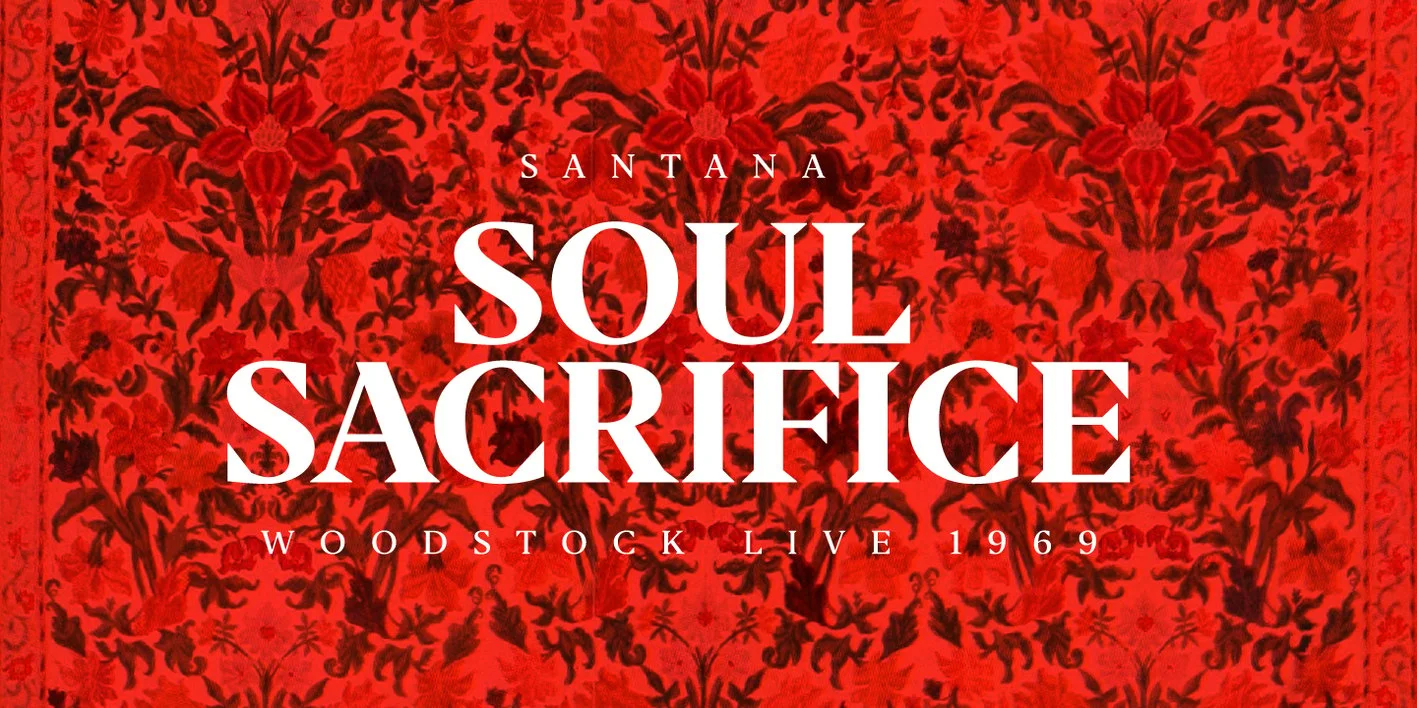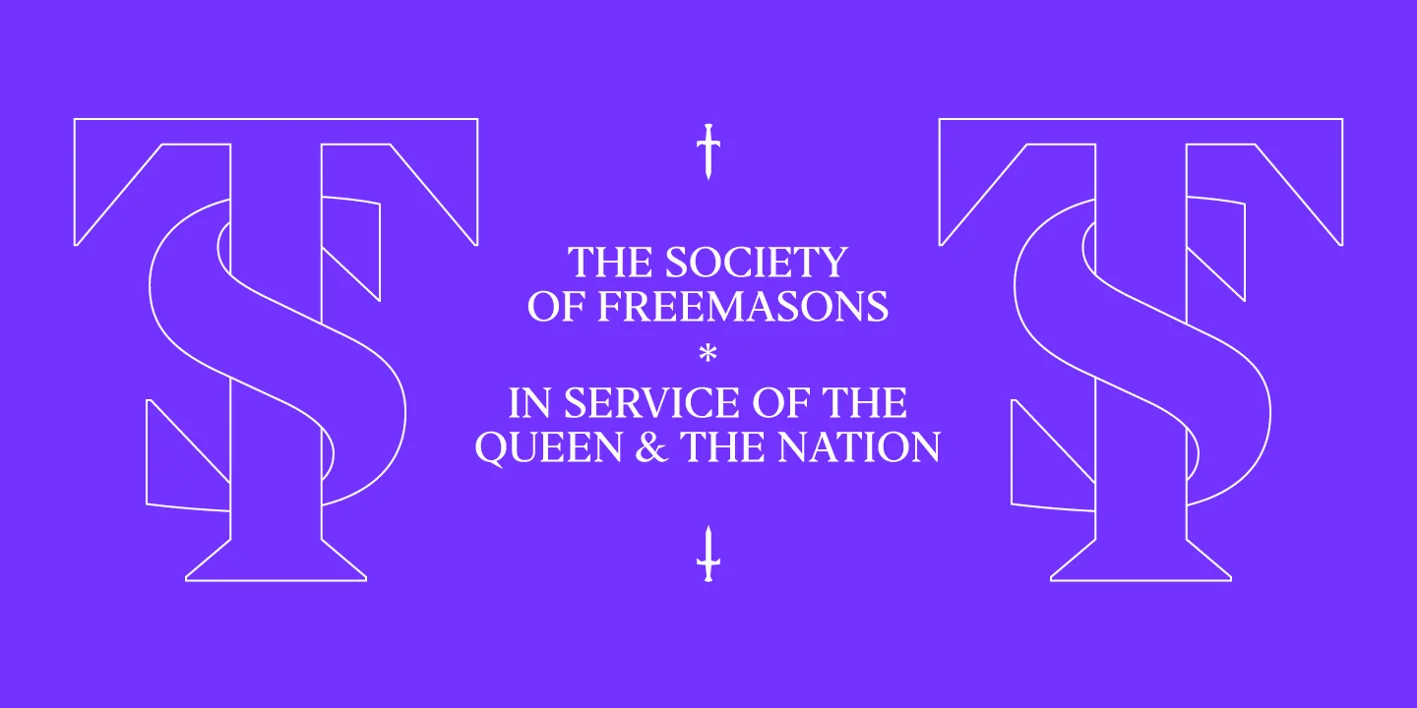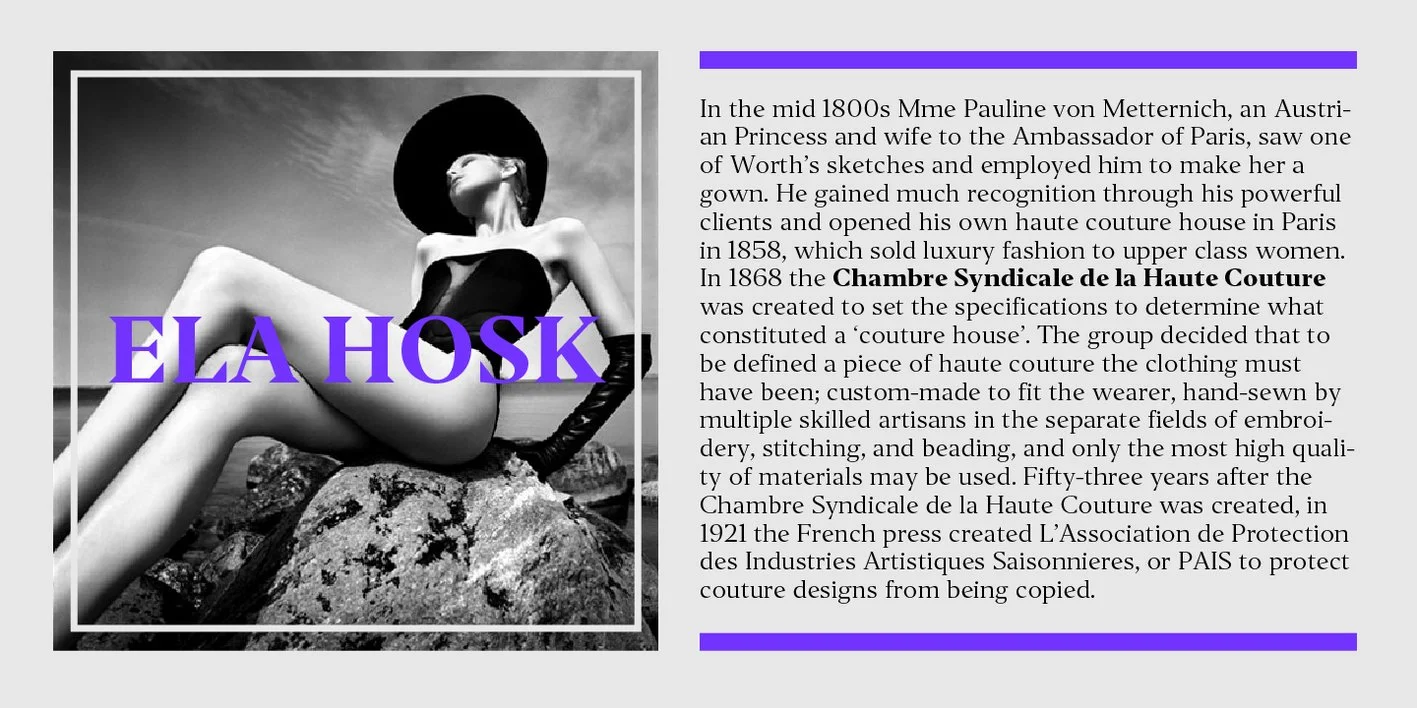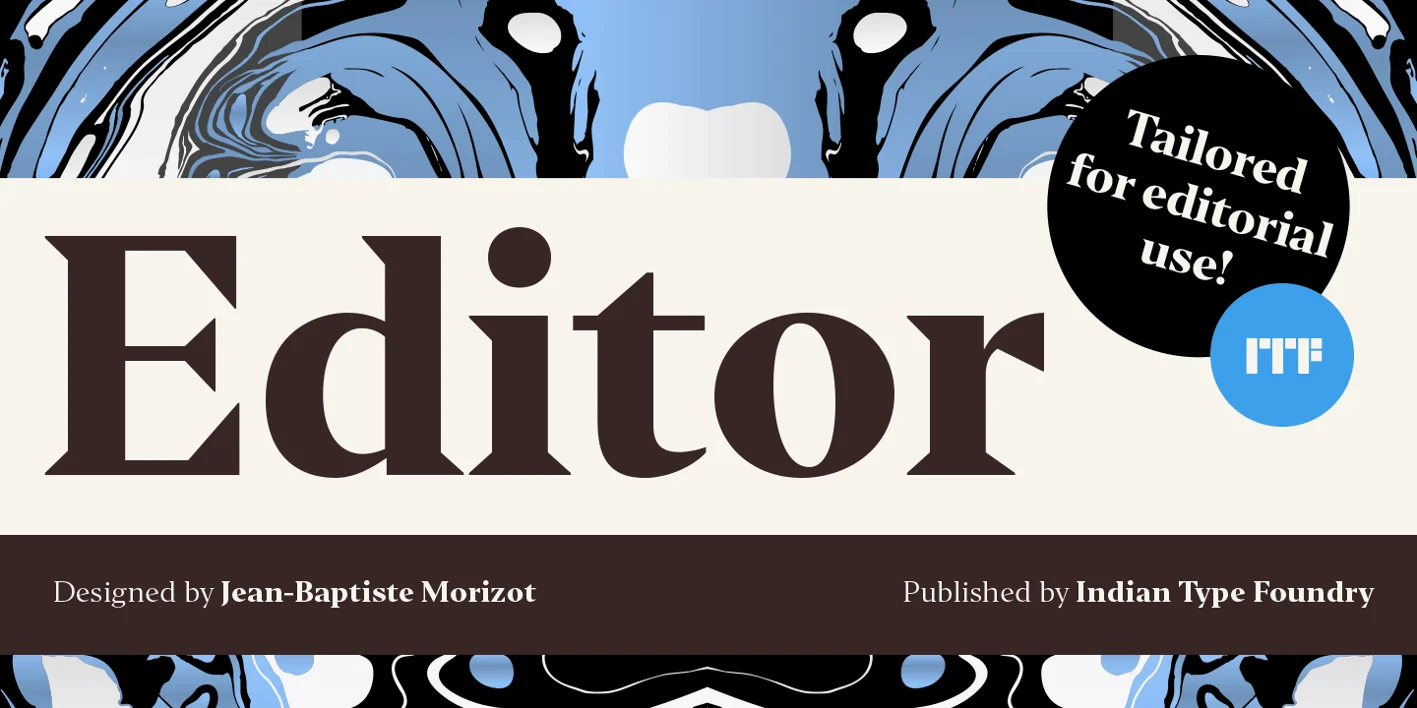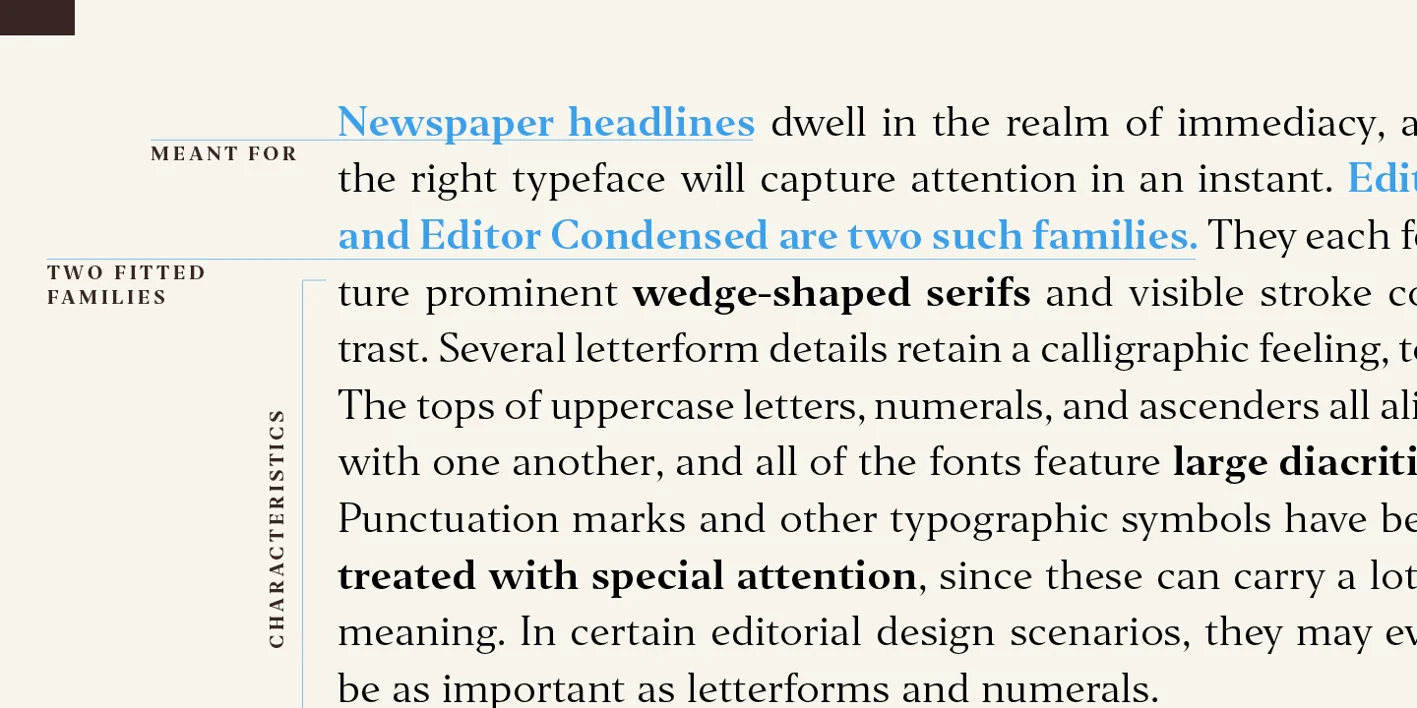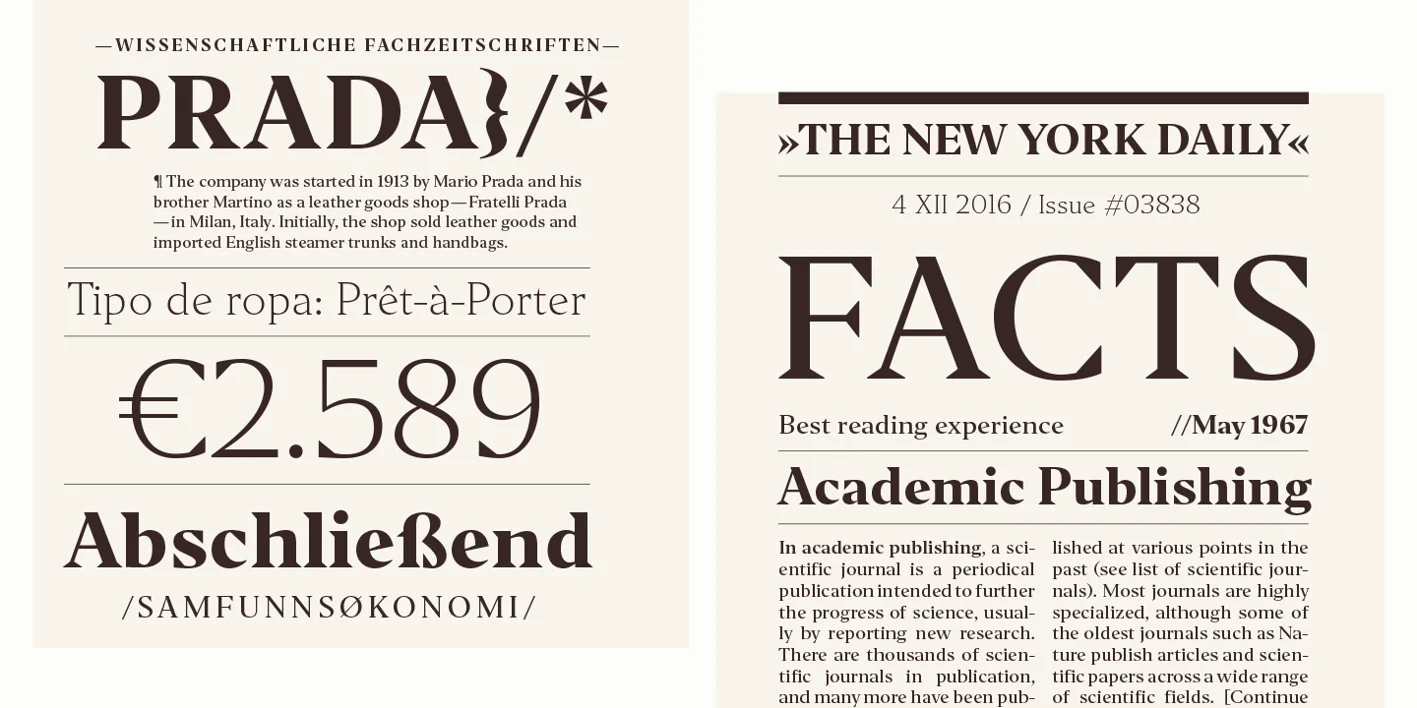
Editor Font
There is a particular satisfaction in finding a typeface that delivers visual harmony and precise spacing without compromise. Editor consistently provides it. The typeface brings a versatile sensibility to a broad range of creative disciplines, with versatility across print and screen contexts that holds up whether the work is print-first or screen-first.
In practice, Editor proves particularly effective for social media graphics, logo design, brand identity systems, editorial layouts, annual reports. Designers reaching for it find that the type decisions feel resolved rather than laboured — a useful quality when client timelines are tight.
The range of applications extends to poster creation, signage systems, packaging design, product labels. That breadth is deliberate: the proportions and spacing were stress-tested across a wide range of mock briefs before the typeface was finalised.
Spacing and kerning pairs have been individually reviewed for the most common letter combinations in English and major European languages. The result is even type colour across continuous text, with no awkward gaps or collisions between adjacent characters.
Motion designers building title sequences and lower thirds find Editor a reliable choice for projects that demand both personality and restraint. The design avoids the self-conscious quirkiness that dates quickly, settling instead for considered distinctiveness that holds up over time.